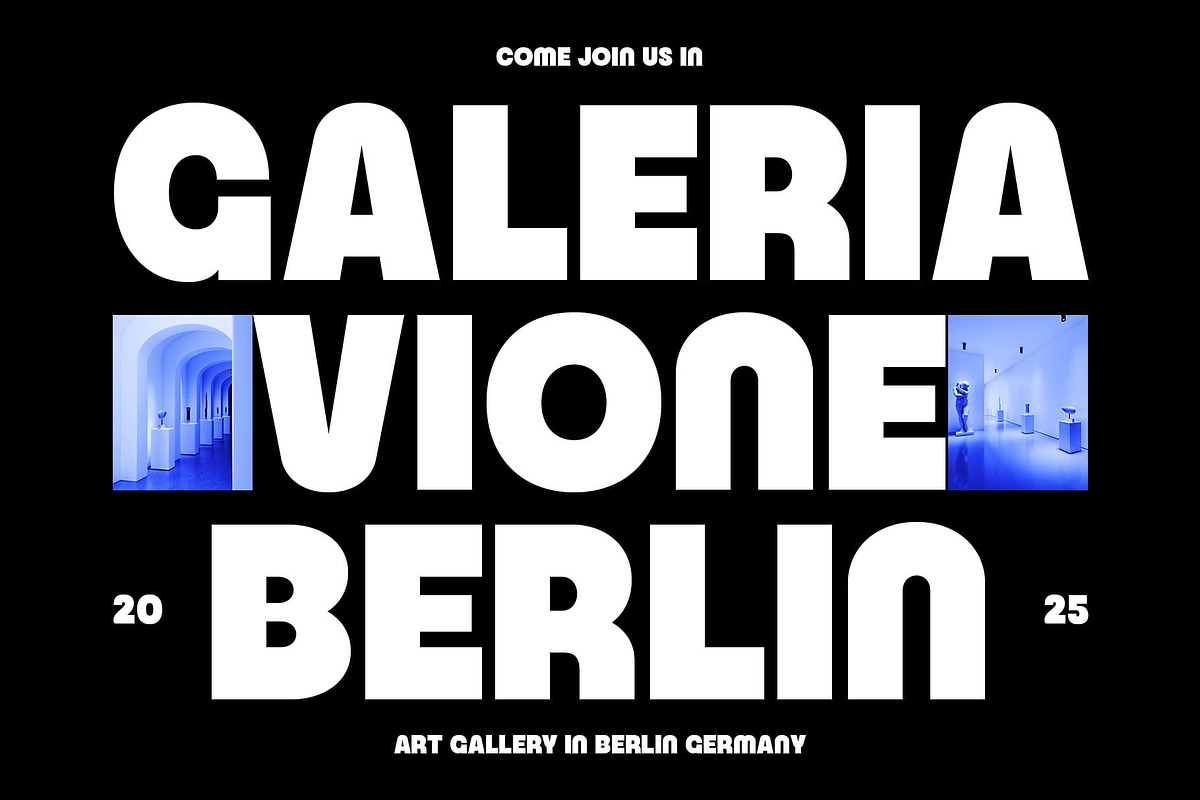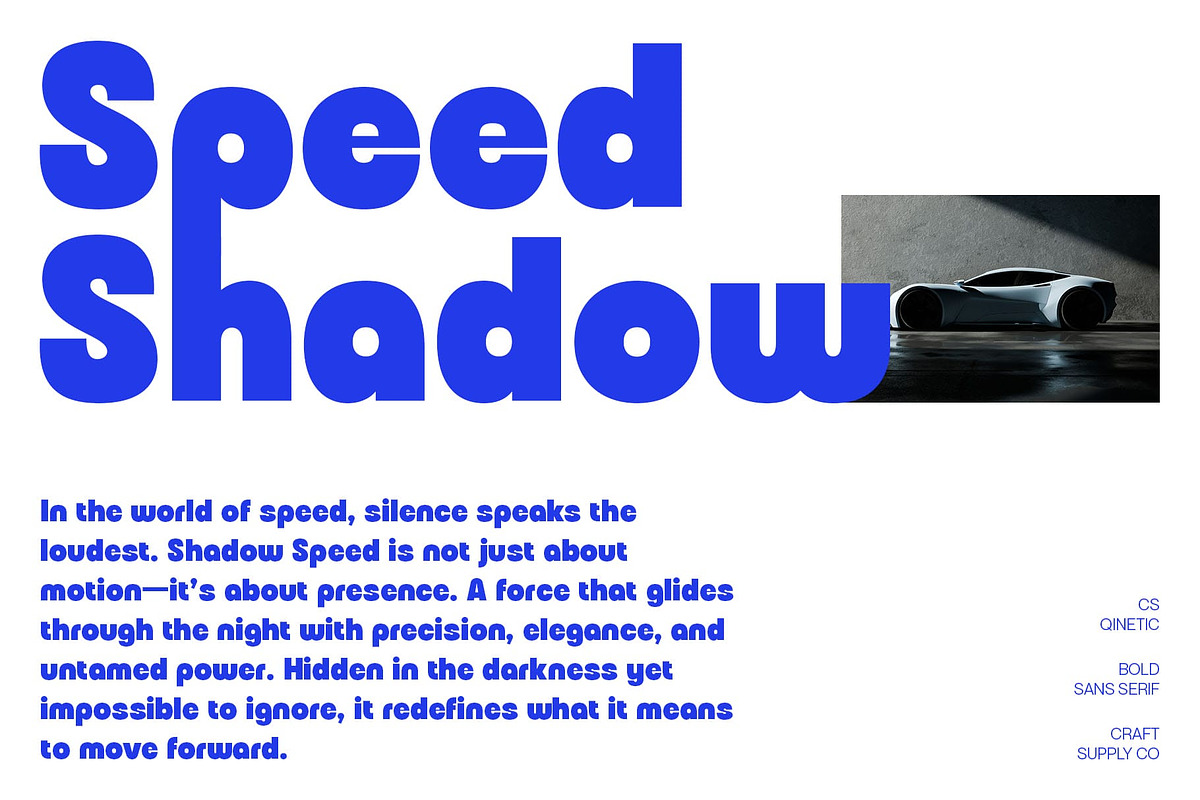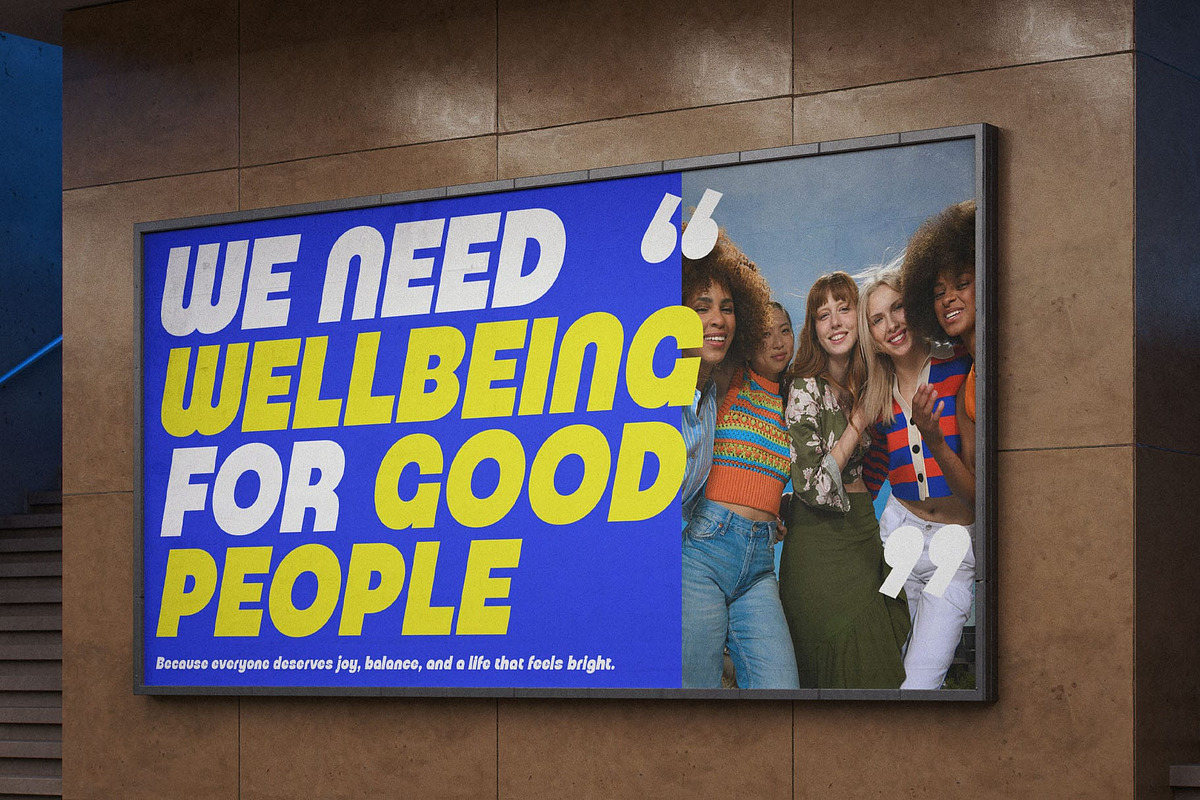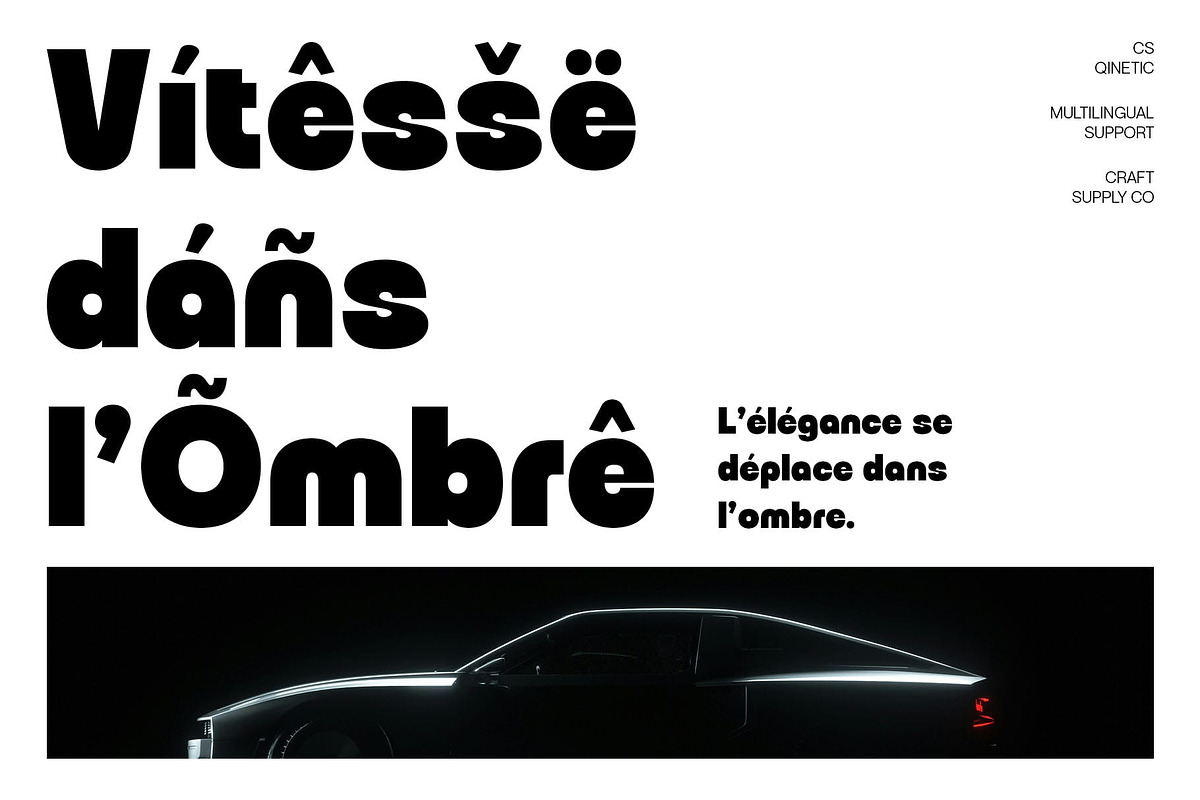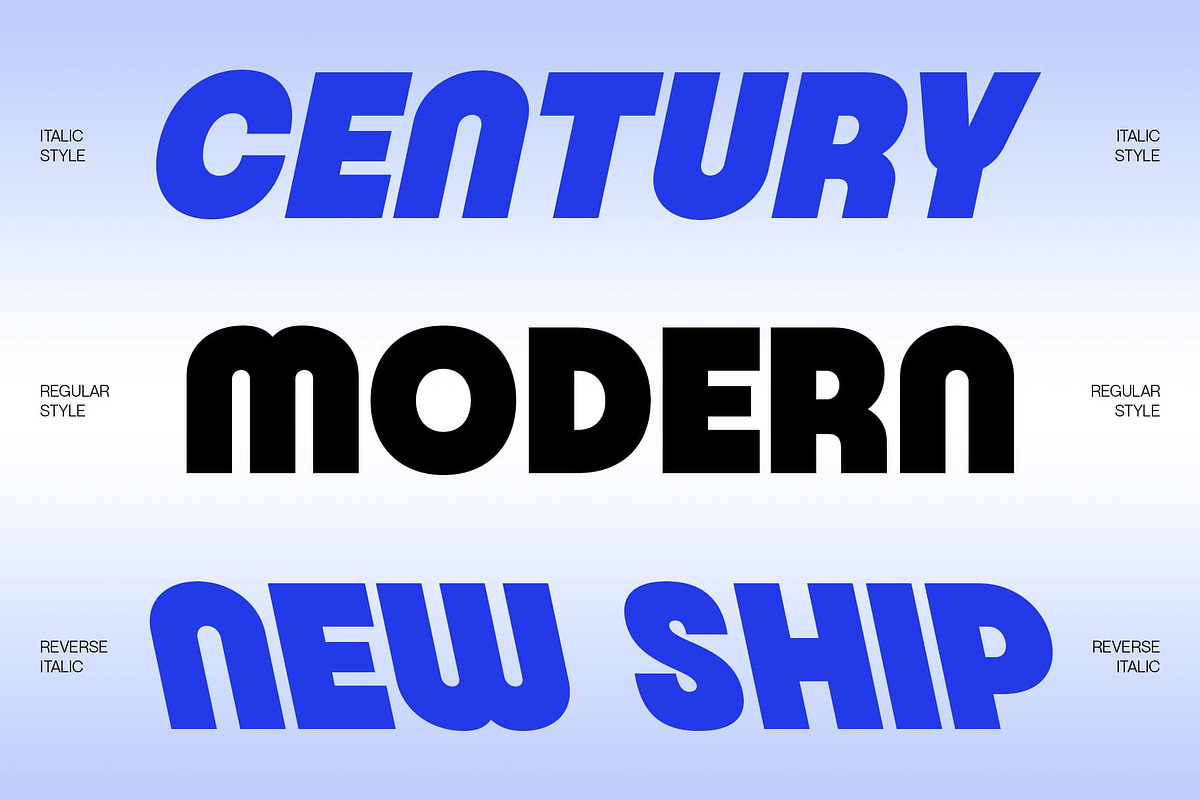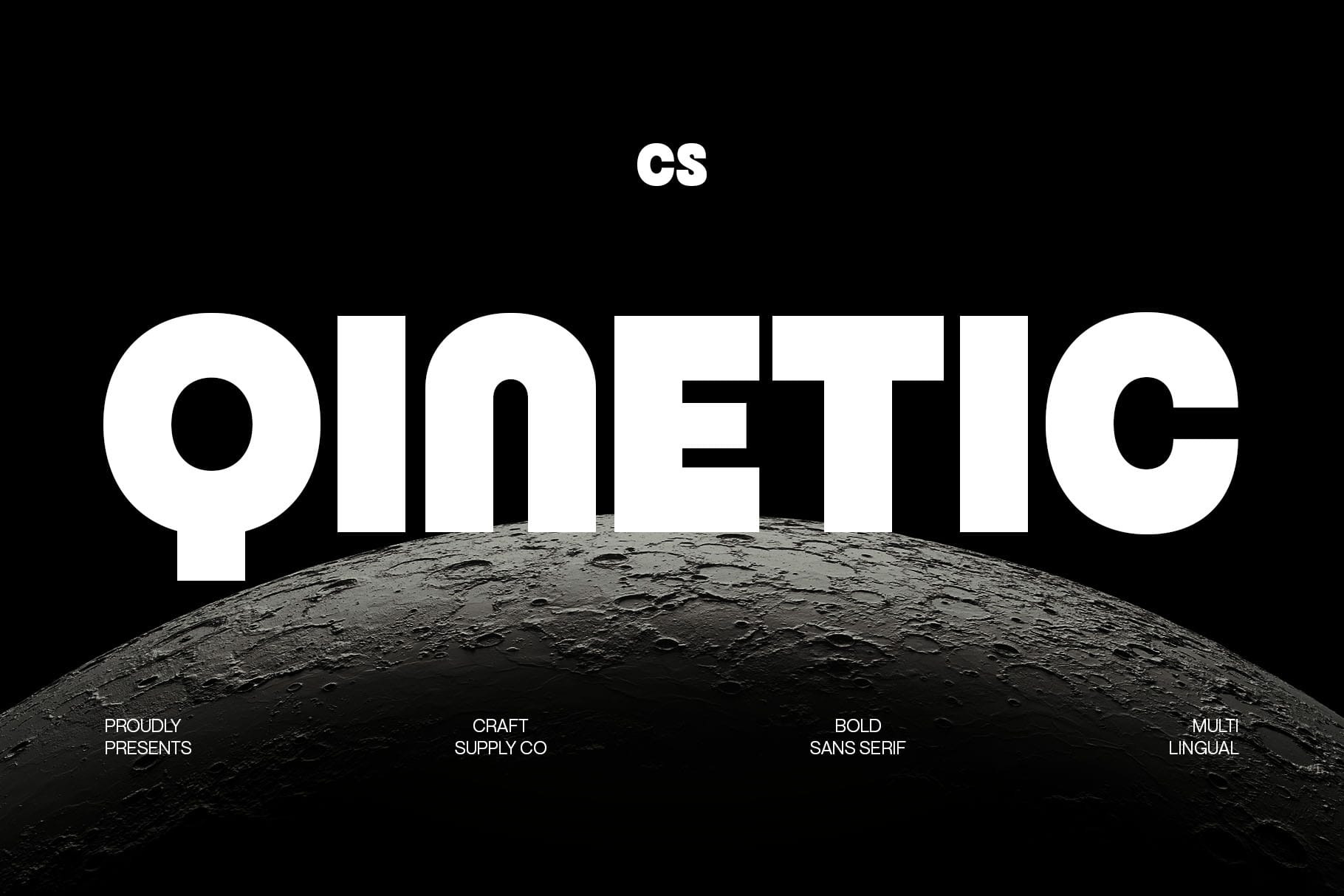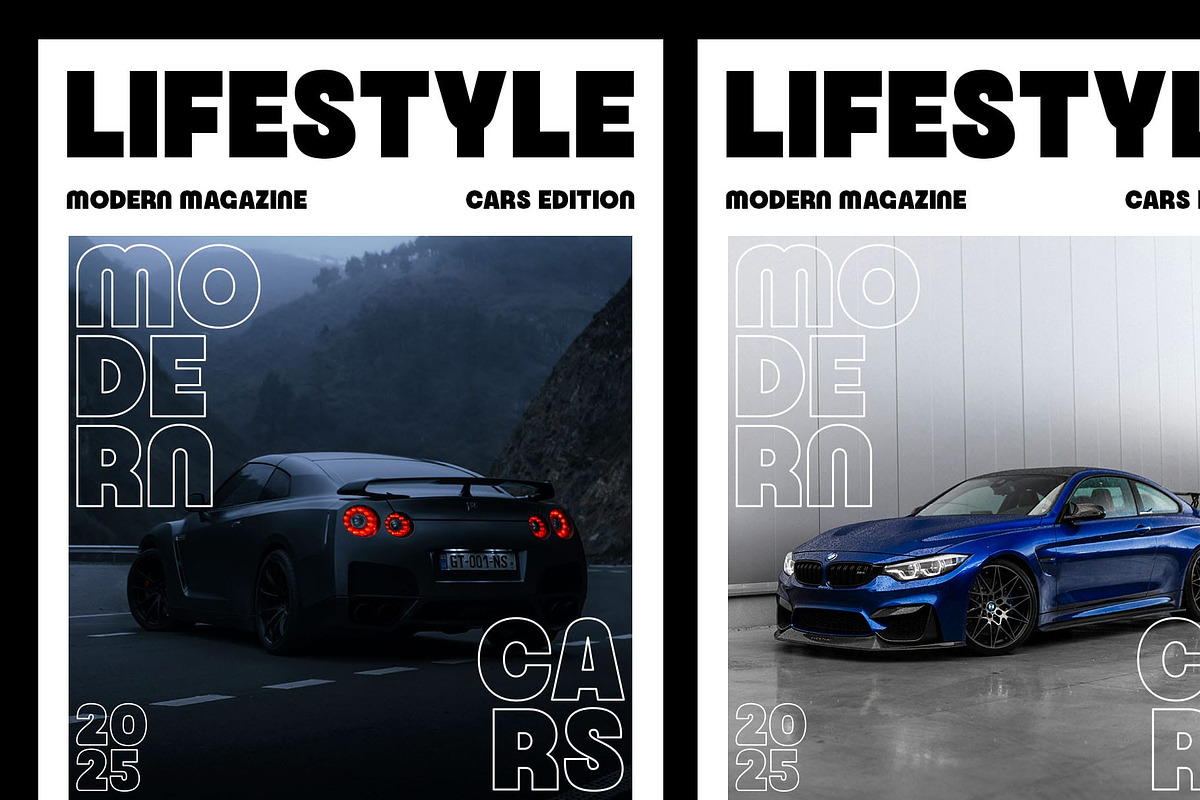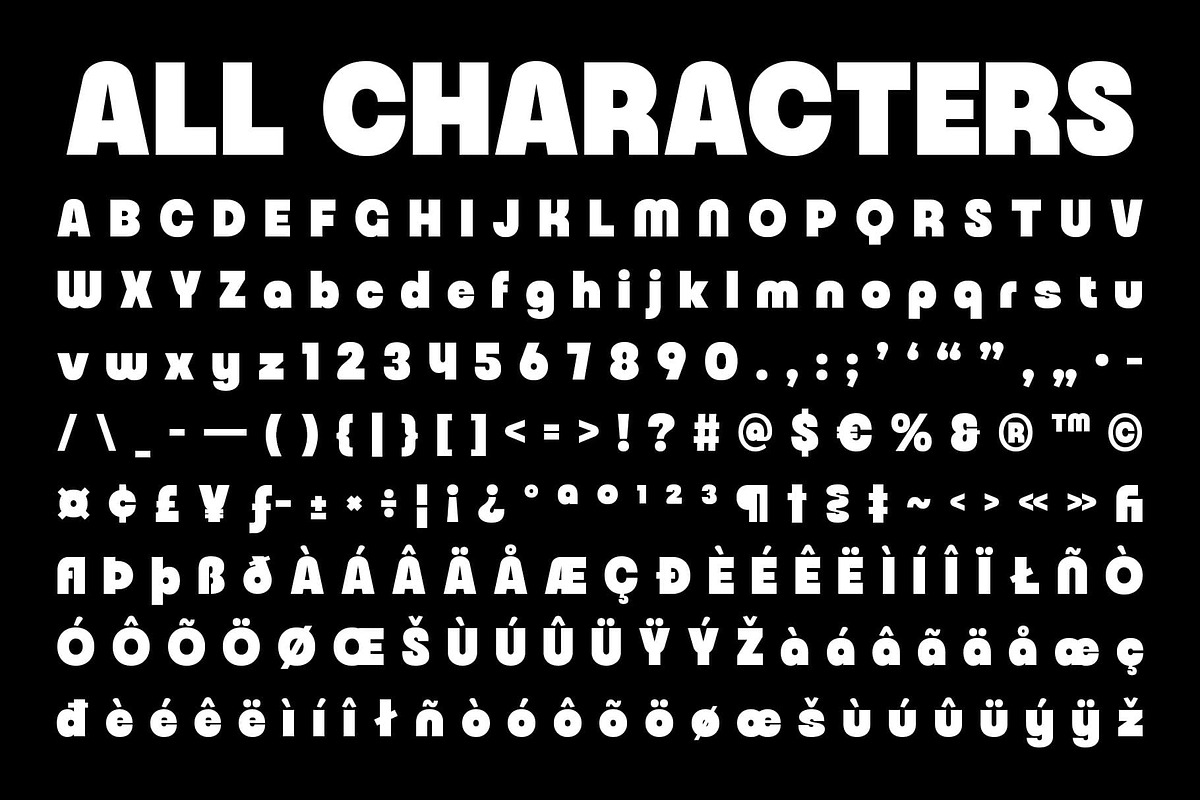
CS Qinetic – Bold Font
CS Qinetic – Bold Font: Modern Strength with Geometric Precision
Bold Modern Sans Serif CS Qinetic – Bold Font is a modern sans serif font featuring bold, geometric, and clean letterforms. Its structured shapes convey confidence and precision, making it highly readable while delivering a strong visual presence.
Contemporary Style with Impact Designed with contemporary aesthetics in mind, CS Qinetic combines modern geometry with clean lines, creating a typeface that feels both professional and dynamic. Its boldness ensures that every word stands out with authority and clarity.
Ideal for Strong, Professional Designs Perfect for projects that demand modern strength and sophistication, CS Qinetic excels in branding, posters, logos, digital design, and editorial layouts. Its clean geometric forms provide versatility across print and digital media while maintaining a cohesive, polished look.
Balanced Boldness and Readability Despite its strong and bold appearance, CS Qinetic maintains excellent readability and proportional harmony, making it suitable for both display and larger textual applications. Its precise geometric structure allows designers to create impactful designs without compromising clarity.
Versatile, Confident, and Modern CS Qinetic – Bold Font strikes the ideal balance between strength, professionalism, and contemporary style. Its geometric elegance and bold design make it perfect for designers seeking a font that communicates confidence, clarity, and modern sophistication in any project.